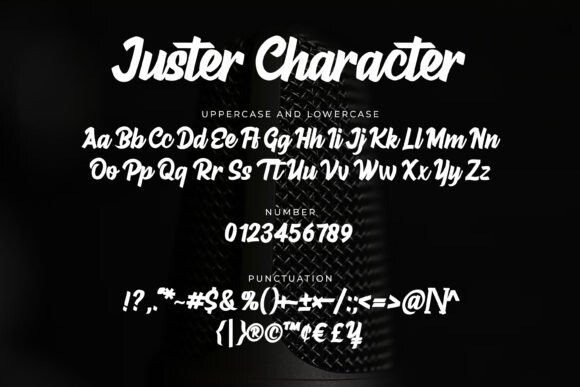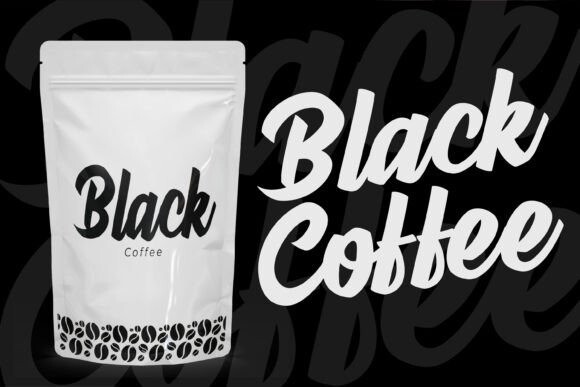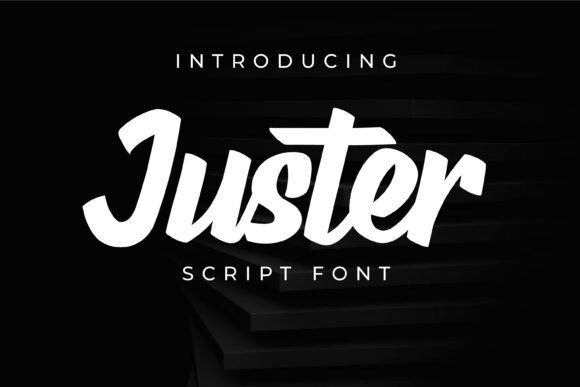
Juster Font
Designer: ajiwaluyo88
Juster Font a refined script font that combines sophistication with a modern touch. With graceful curves and flowing strokes, Juster brings a personal and artistic touch to your designs, ideal for everything from wedding invitations and branding to social media graphics and personal stationery.